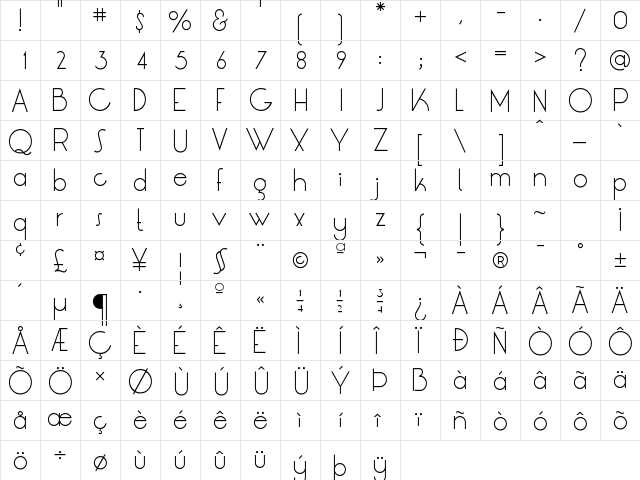
LT Oksana Light Regular
Design Context for LT Oksana Light Typeface
LT Oksana Light is a composed and adaptable typeface that performs quietly and consistently across a wide range of design contexts. Its slender proportions lend an understated elegance to any composition.